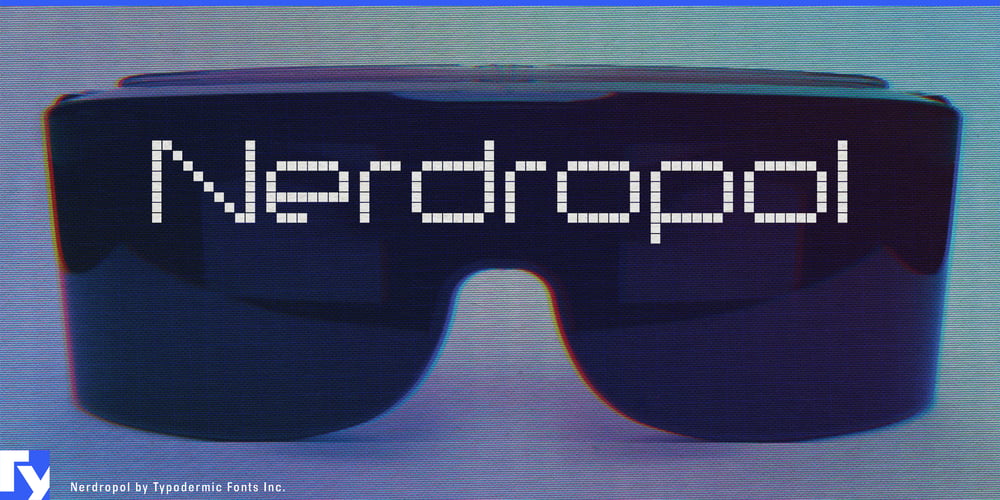
Nerdropol Font Family was designed by Ray Larabie and published by Typodermic. Nerdropol contains 8 styles and family package options. Attention, fellow code warriors and pixel pushers! Prepare to have your retinas seared by the sheer awesomeness that is Nerdropol. This isn’t just another typeface—it’s a digital time machine that’ll transport you straight back to the days of 8-bit glory and dial-up modems.Born from the silicon womb of Neuropol X, Nerdropol is the simulated bitmap typeface you never knew you needed. It’s like someone took the essence of those chunky, pixelated fonts from your favorite old-school games and injected them with a megadose of cyberpunk coolness. Each character is a meticulously crafted homage to the OG pixel fonts, rendered with the kind of attention to detail usually reserved for overclocking your CPU. But here’s where it gets really nerdy: Nerdropol limits its kerning to full pixel increments. That’s right, we’re talking pixel-perfect precision that’ll make your inner perfectionist squeal with delight.This font doesn’t just look techy—it practically hums with electric energy. And for all you polyglots and international code-slingers out there, Nerdropol’s got your back. It supports more Latin-based European writing systems than you can shake a USB stick at. From Albanian to Zuni, this font’s linguistic range is as impressive as its pixel-perfect aesthetics.So, whether you’re designing the next big indie game, crafting a logo for your tech startup, or just want to make your Dungeons & Dragons character sheet look like it came from the future, Nerdropol is your ticket to digital nirvana. Don’t just choose a font—choose to level up your design game.